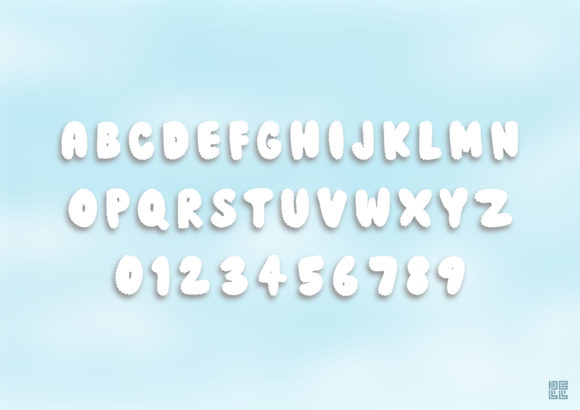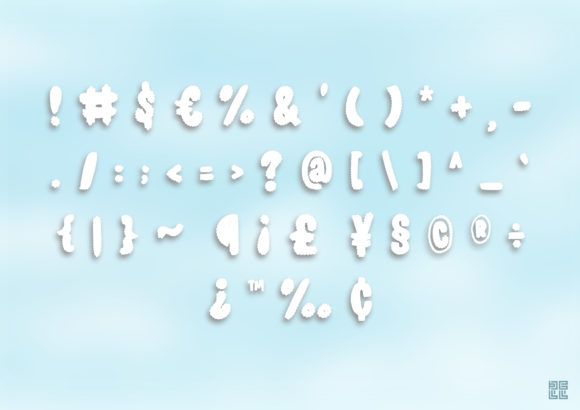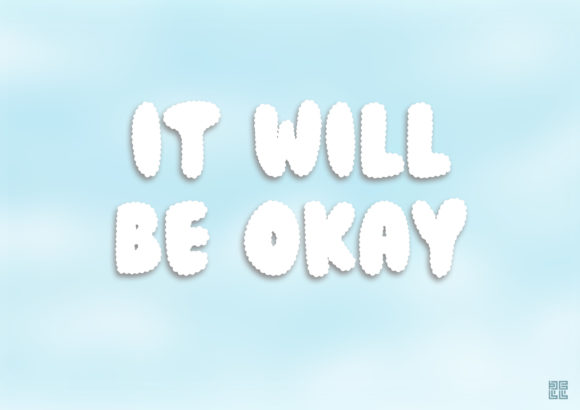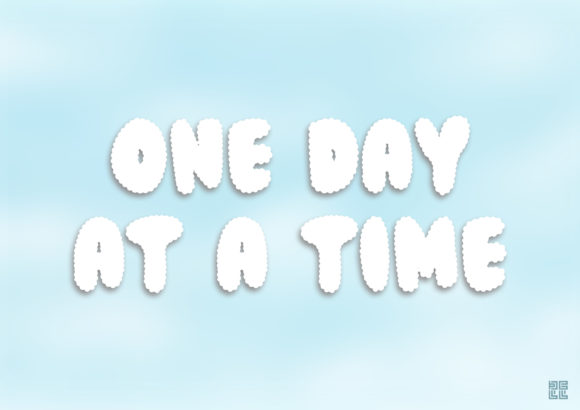
Introduction to Chomolo Font
Chomolo is a cool and thick lettered display font.
It will look stunning on any poster, flyer or print Use this font for your designs and explore its endless possibilities.
Key Features of Chomolo Font